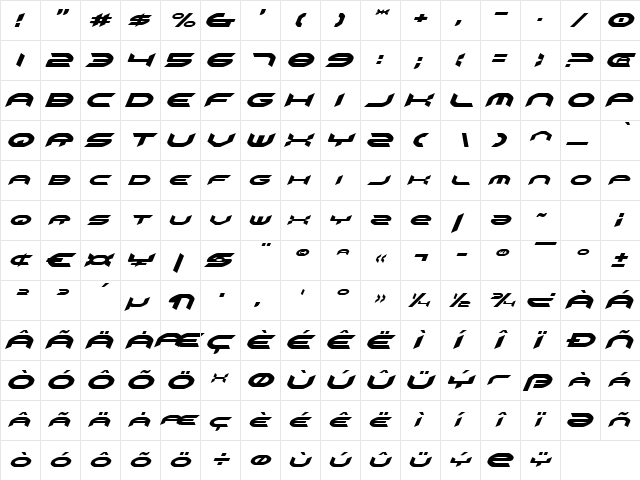
Omni Girl Italic Italic
Design Context for Omni Girl Italic Typeface
Omni Girl Italic is a composed and adaptable typeface that performs quietly and consistently across a wide range of design contexts. Its italic angle brings a sense of urgency and motion to the letterforms.
Pro Tip: Use Omni Girl Italic for emphasis, pull quotes, and subheadings where its slanted energy can add rhythm to the layout.